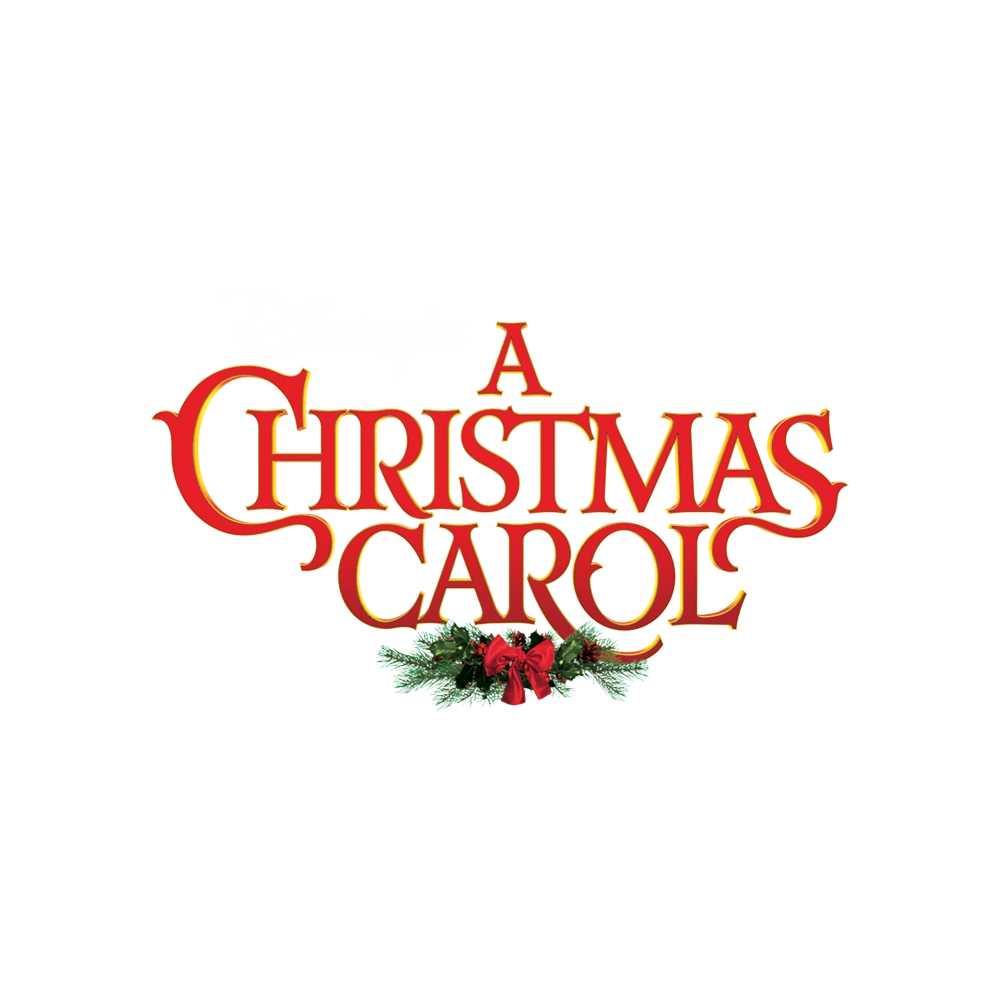
A Christmas Carol Font
Movie & TVA Christmas Carol (2009) is an animated film adaptation of Charles Dickens' classic novel, directed by Robert Zemeckis. It vividly brings to life the story of Ebenezer Scrooge, a miserly old man who is visited by ghosts of Christmas Past, Present, and Yet to Come, leading him to transform into a kinder, gentler person.